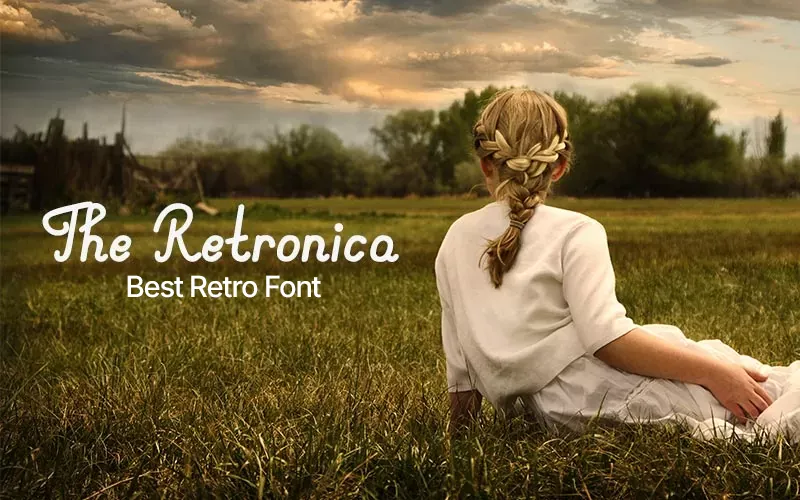
The Retronica – Best Retro Font
The Best Retro Font For You!
Introducing “The Retronica Timeless Font” – a retro font that combines the best of both worlds. This modern font has been created with an old-fashioned touch, combining the classic style of vintage typography with the modern-day finesse of digital fonts.
The Retronica Timeless Font is versatile, timeless, and perfect for any design project requiring a vintage style touch.
It is crafted with meticulous attention to detail, where each letter exudes character and charm, thus is perfect for any project seeking a touch of vintage elegance.
Whether designing a retro poster, creating a vintage logo, or adding a classic touch to your website, this font is perfect. It is easy to read and use. It will help you create designs that stand out from the crowd.
A Look At The Best Retro Font:
the Retronica - the best retro font preview text
the Retronica - a retro font preview text